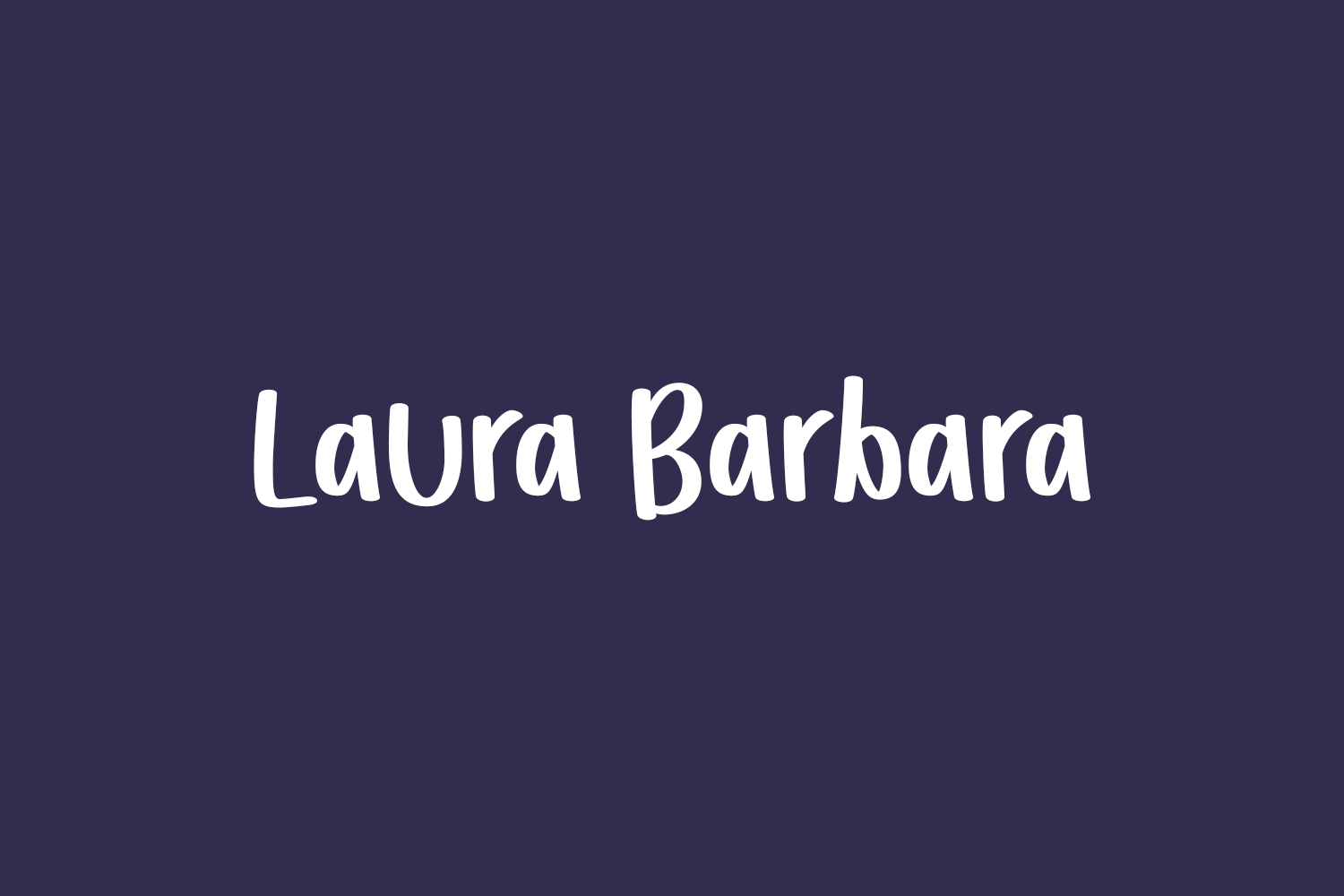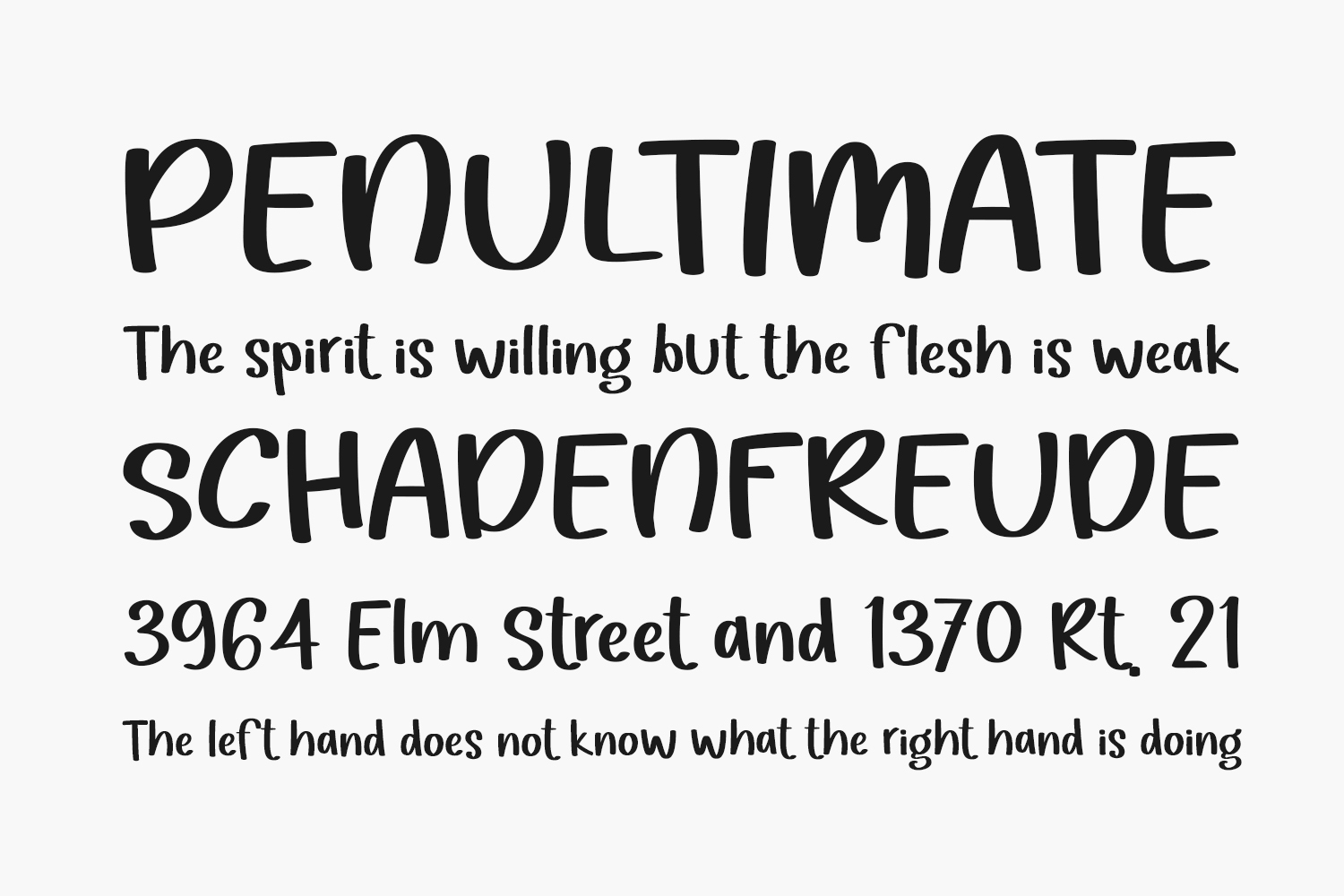
Laura Barbara Free Font is a fresh and quirky display font. Whether you’re looking for fonts for Instagram or calligraphy scripts for DIY projects, this font will turn any creative idea into a true piece of art. Laura Barbara Free Font is free for personal use only. Please purchase the full version for commercial use.
Designed by Nirmala Creative